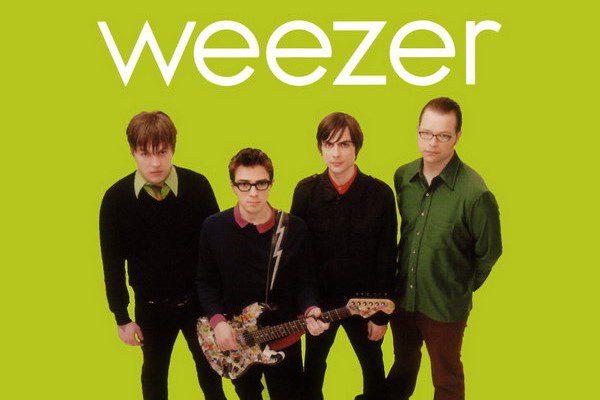
The font that most closely resembles the lettering used on the official Weezer album cover, is a typeface by the name of WeezerFont. This is a Sans Serif font that comes in a True Type Font (TTF) format. WeezerFont is a fan created font which includes a total of 243 characters and glyphs. In includes a full selection of uppercase, lowercase, numeric, and punctuation characters. It has been released as a Freeware font, and can therefore be used freely for all non-commercial purposes.
Weezer has its own font. The Weezer font is a very simple one, it's Century Gothic and it is fairly plain. However, that doesn't make it any less recognizable. Weezer has amassed a whole bunch of awards and accolades. Grammys, MTV video music awards, and a Kerrang! Hall of fame award. The band has released a total of 15 music albums over the years, and they are still working on producing new music today. This band has performed songs for many major movies over the years, including American Pie 2, Shrek Forever After, Angus, and many more, including TV shows and various advertisements as well.